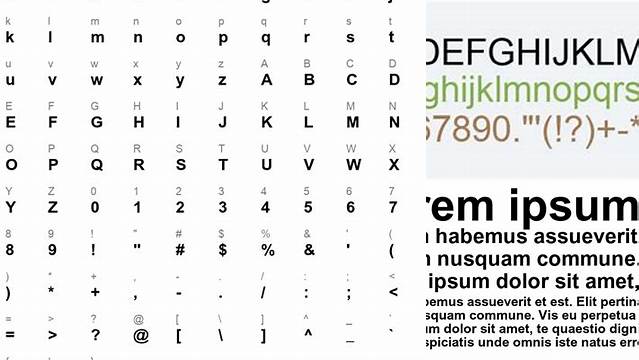
Hey everyone! So, you're looking for the Arial MT Pro Bold font, and you want it for free? That's a common quest, especially when you're trying to get that professional, clean look for your designs, presentations, or even just a document. Arial has been a staple for ages, and the 'MT Pro Bold' version specifically offers that extra punch and weight that can make your text really stand out. Itâs fantastic for headlines, important call-outs, or anything that needs to grab attention. But let's be real, finding legitimate free downloads for premium fonts can sometimes feel like searching for a needle in a haystack. Many sites might offer knock-offs or put you through a maze of annoying ads and potentially harmful downloads. Thatâs why we're here to help you navigate the digital landscape and find reliable ways to get your hands on this stylish font without breaking the bank or risking your computerâs health. Weâll dive into the nuances of font licensing, discuss why Arial MT Pro Bold is such a popular choice, and guide you through the safest methods to acquire it for your creative projects. Get ready to add some serious weight and style to your typography toolbox!
Understanding Arial MT Pro Bold: More Than Just a Font
So, let's talk about Arial MT Pro Bold, guys. Itâs not just any old Arial; itâs a specific variation that designers and everyday users alike often seek out. When we talk about the Arial family, weâre referencing a sans-serif typeface thatâs been around since the 1980s. It was designed as a competitor to Helvetica, aiming for a similar clean, modern, and highly legible appearance. However, Arial MT Pro Bold takes this classic design and injects it with a significant dose of gravitas. The 'MT' often refers to Monotype, the company that originally developed or licensed versions of Arial, and 'Pro' typically suggests a more extensive or refined version compared to basic Arial. The 'Bold' aspect, as youâd expect, gives it that extra thickness, making it perfect for headings, titles, or any text that needs to command attention. Think about the difference between a casual conversation and a formal announcement; Arial MT Pro Bold is that announcement. Its robust weight ensures excellent readability even at smaller sizes when used for emphasis, and at larger sizes, it has a strong, confident presence. Itâs incredibly versatile, fitting seamlessly into corporate branding, web design, print materials, and so much more. The clarity and straightforwardness of Arial, amplified by the boldness of the 'Pro Bold' variant, make it a go-to for situations where you need your message to be clear, impactful, and professional. Unlike some overly decorative fonts, Arial MT Pro Bold maintains a sense of seriousness and efficiency, which is why itâs so widely adopted across various industries. Itâs the kind of font that doesnât distract from your content but rather enhances its presentation, ensuring your message lands with the intended force.
Exploring Alternatives if Arial MT Pro Bold Isn't Free
Okay, so maybe youâve checked your system, and perhaps the specific 'MT Pro Bold' variant isn't quite what you need, or you're looking for something even more unique. That's totally fine! The good news is that the world of typography is vast, and there are tons of fantastic fonts out there that offer a similar vibe to Arial MT Pro Bold â clean, sans-serif, and bold â but might be available for free or under more permissive licenses. We're talking about fonts that give you that professional, legible look without the potential licensing headaches or costs associated with premium versions. Let's dive into some categories and specific examples. First up, consider fonts available on platforms like Google Fonts. They have a massive library of high-quality, open-source fonts that you can download and use for absolutely any project, personal or commercial, without worrying about licensing. Think of fonts like Roboto, Open Sans, or Lato. Roboto, for instance, is a neo-grotesque sans-serif designed by Christian Robertson. Itâs modern, geometric, and has a great range of weights, including a very strong bold. Open Sans, designed by Steve Matteson, is another excellent humanist sans-serif known for its readability and friendly appearance, also with robust bold options. Lato, by Ćukasz Dziedzic, is a sans-serif typeface that feels classic yet fresh, and its bold weights are particularly commanding. Another fantastic resource is Font Squirrel. They specialize in curating free, commercially-usable fonts. You can often find professional-quality typefaces there that rival paid options. Searching for